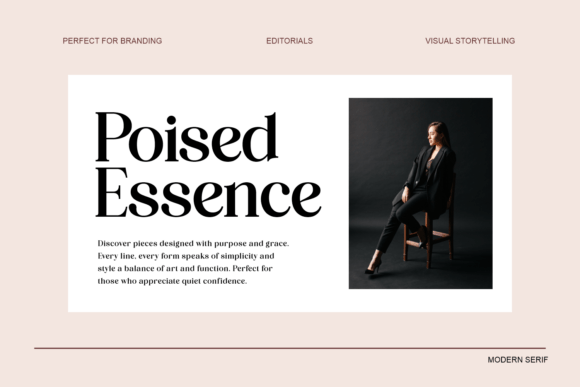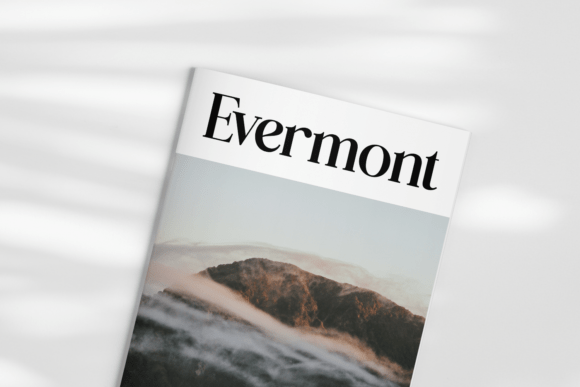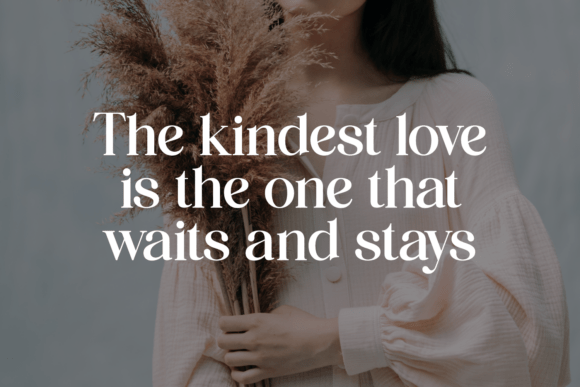
Introduction to Balogem Font
An introductory image for β€œBalogem,” a modern serif typeface.
The design is minimalist and elegant, featuring bold black text, adding a sophisticated and artistic touch .
Key Features of Balogem Font
Why Choose Balogem Font?
Balogem Font offers exceptional quality and versatility, making it a valuable addition to your design toolkit. Whether you’re creating for personal projects or commercial use, Balogem Font delivers professional results.